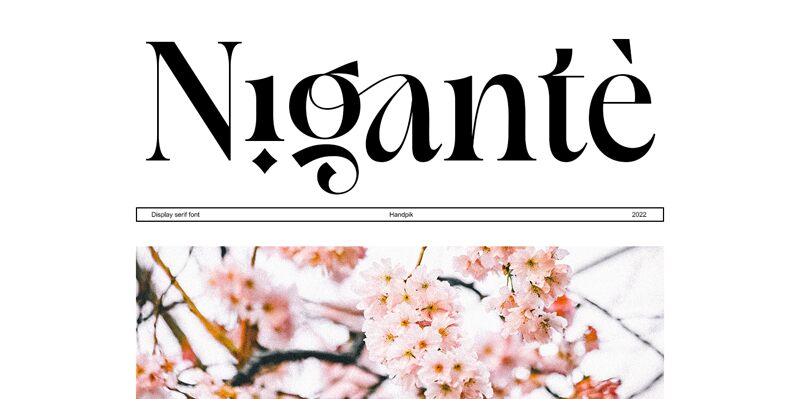
Nigante-Regular
Nigante, a creation by Handpik, is a captivating fancy serif font. With its semi-light weight and semi-condensed width, Nigante exudes elegance and sophistication. This font is perfect for branding projects that require a touch of glamour and refinement.
Use it to design luxurious logos, exquisite invitations, or high-end packaging. Its graceful curves and ornate details will bring a sense of prestige to any project. Nigante also lends itself well to editorial design, adding a touch of class to magazine spreads or book covers. Let Nigante elevate your designs with its timeless beauty.